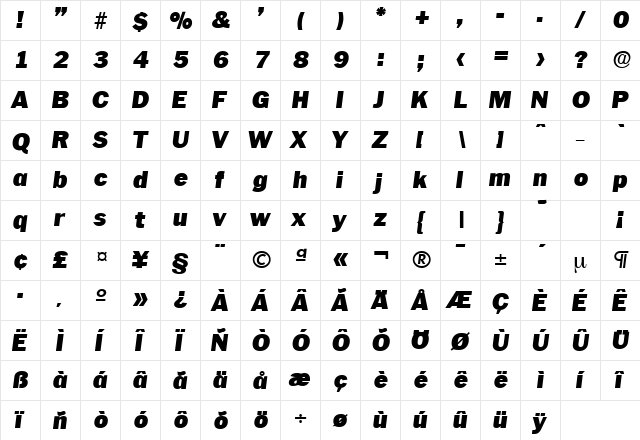
Plymouth-Serial-Black RegularItalic
Design Context for Plymouth-Serial-Black Typeface
Plymouth-Serial-Black is a composed and adaptable typeface that performs quietly and consistently across a wide range of design contexts. The dynamic lean of this cut emphasises speed and emphasis in any layout.
Pro Tip: Try Plymouth-Serial-Black for annotation and caption copy alongside an upright companion — the contrast in angle creates a dynamic but ordered typographic system.